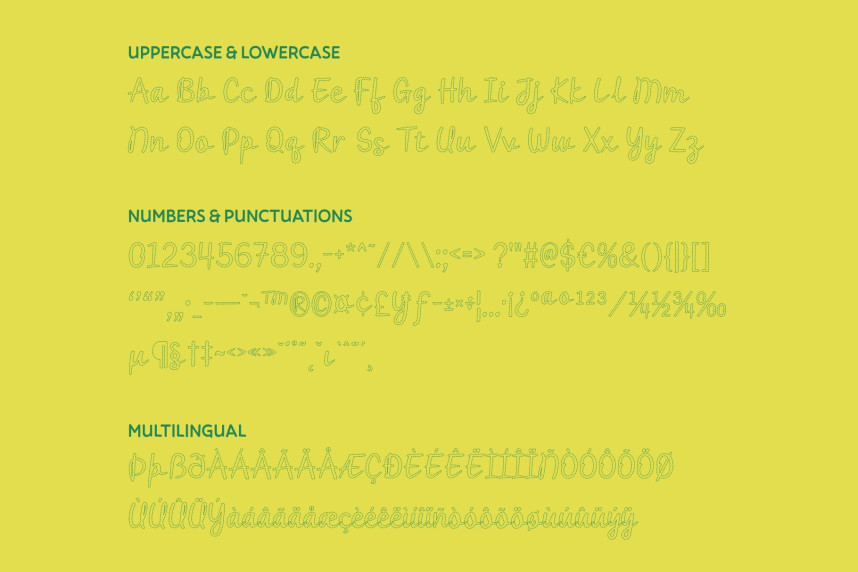
CS Ricotta Dashed Font
CS Ricotta Dashed Font – Handwritten Script Font with Romantic Curves
Elegant and Flowing Design
This is a flowing handwritten script font that radiates charm and sophistication. Its graceful curves and stylish strokes capture the essence of natural handwriting, while the dashed detailing adds a light, handcrafted texture that gives the font a distinctive and artistic personality.